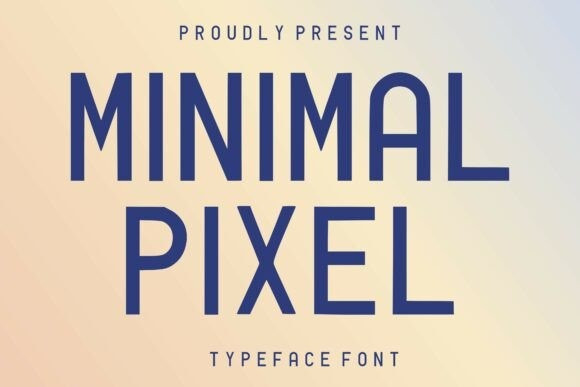
Minimal Pixel Font
Designer: Riki.studio
Minimal Pixel Font is a sleek and stylish display font that combines retro pixel influences with modern geometric forms. Its tall, clean letterforms create a strong visual impact while maintaining excellent readability. Designed for creatives who love minimalist aesthetics, this typeface is ideal for branding, posters, headlines, packaging, social media graphics, gaming projects, tech-themed designs, and editorial layouts.
Whether you’re creating futuristic branding, vintage-inspired artwork, digital products, or modern marketing materials, Minimal Pixel delivers a unique and professional look that stands out.